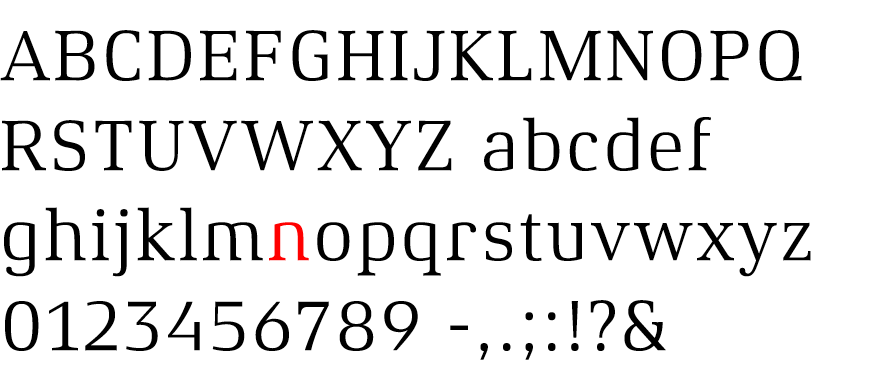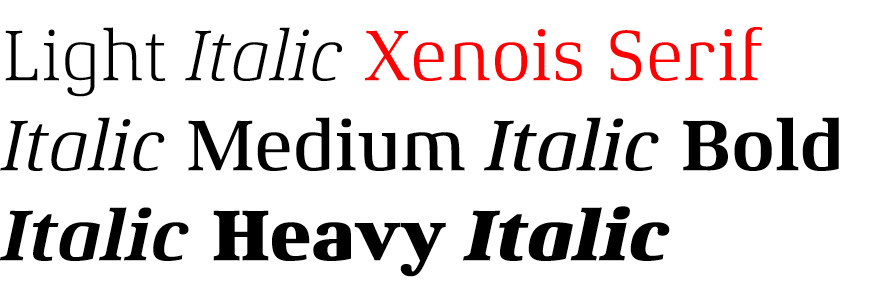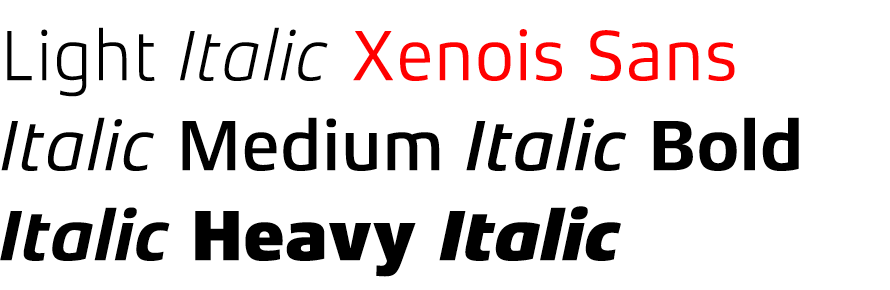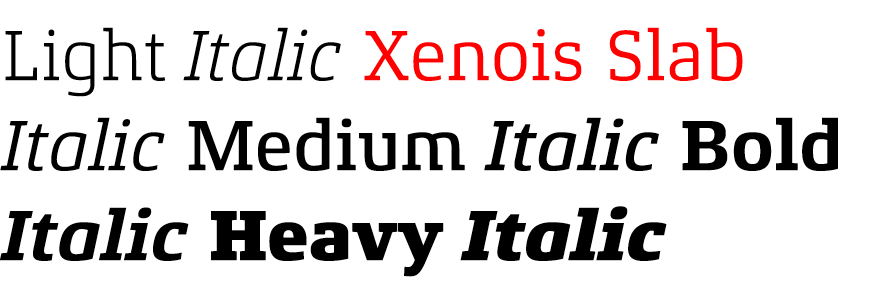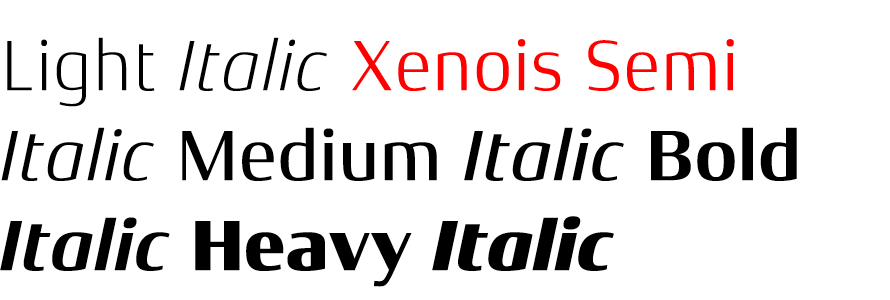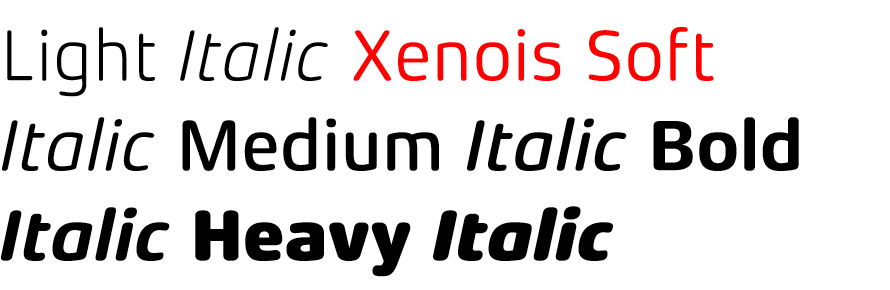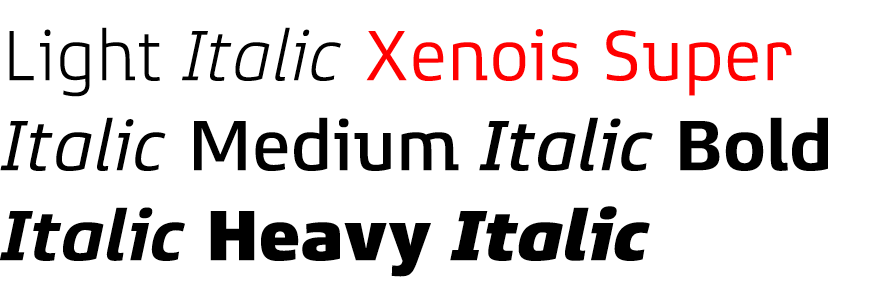
Erik Faulhaber
Xenois
Interrelated font system with unified basic form.
High-quality shapes through carefully designed details.
Inspired by the fusion of clear-sans with serif style.
The lack of spurs on stems gives a clear shape.
For readability not-essential horizontal strokes are removed.
Alternate numerals of Soft meet the German standard requirements to legible texts.
Matching arrow symbols indicate in eight directions.
Old style numerals of Super help animate typography.
Lowercase l of Super is shaped for public signage.
Six styles, five weights and italics.